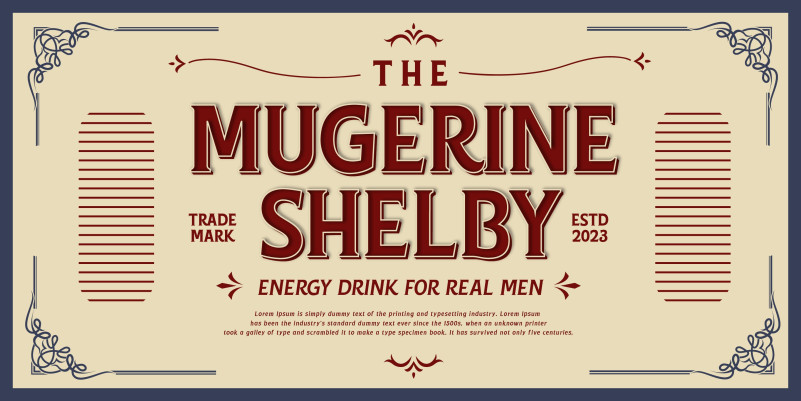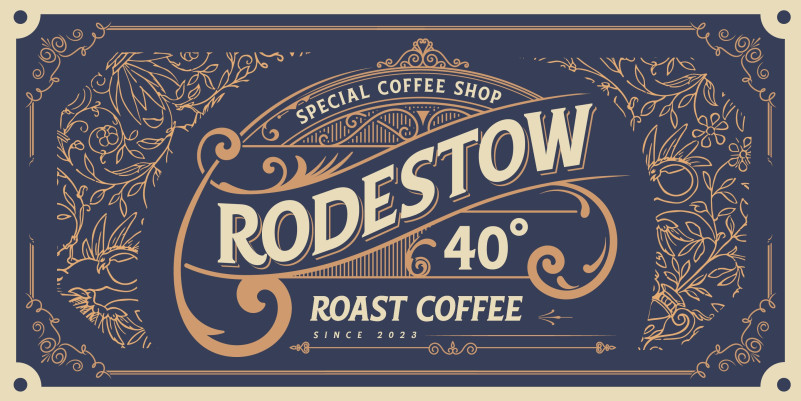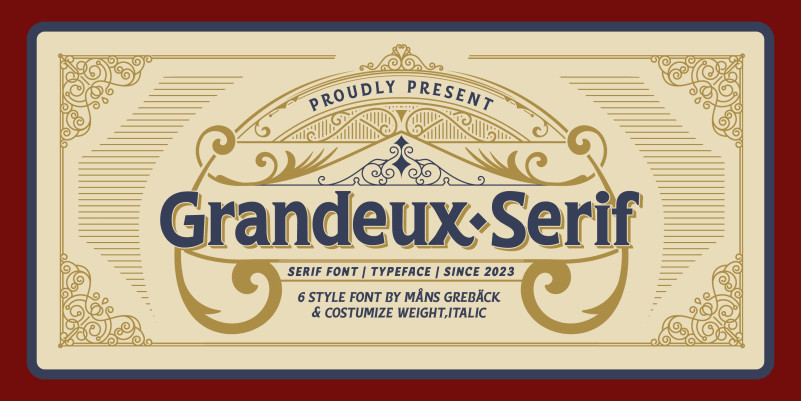
Grandeux Serif Font
Grandeux Serif Font, is a classic Victorian-inspired font that exudes vintage elegance and sophistication, drawn and created by Mans Greback in 2023. The font’s heavy letterforms and high-quality craftsmanship give it a strong presence, while its intricate details and stylistic alternates allow for a truly customized and unique look.